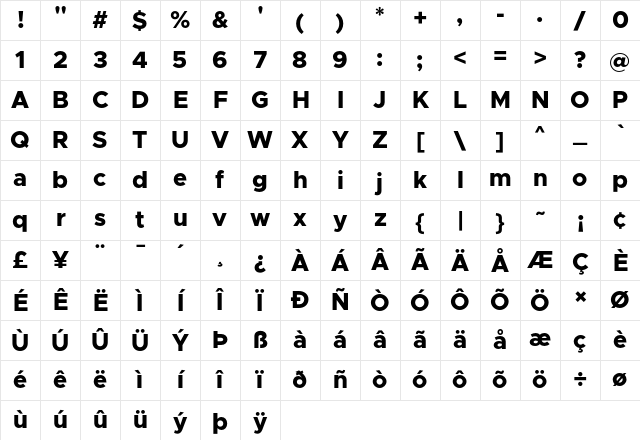
Metropolis Extra Bold Free Font
Metropolis Extra Bold
Style: Extra Bold
Foundry: Victory One Media Pty Ltd
Designer: Chris Simpson
Complete Metropolis Extra Bold glyph index. Displaying only characters natively supported by Metropolis Extra Bold font.
Design Context for Metropolis
Metropolis is a composed and adaptable typeface that performs quietly and consistently across a wide range of design contexts. Its bold stroke weight gives it real presence on the page.
Who designed the Metropolis Extra Bold font?